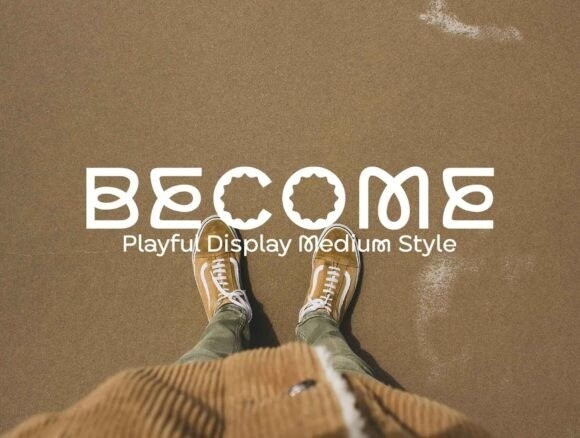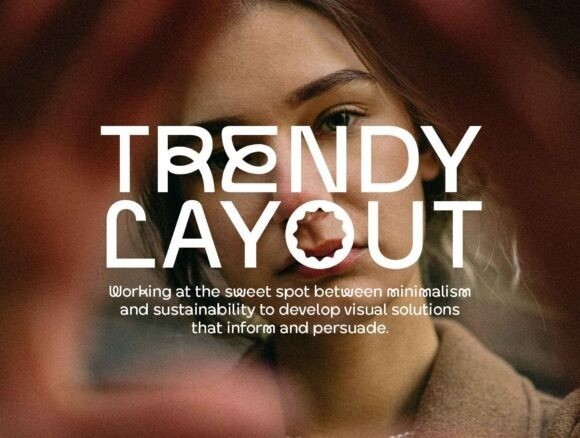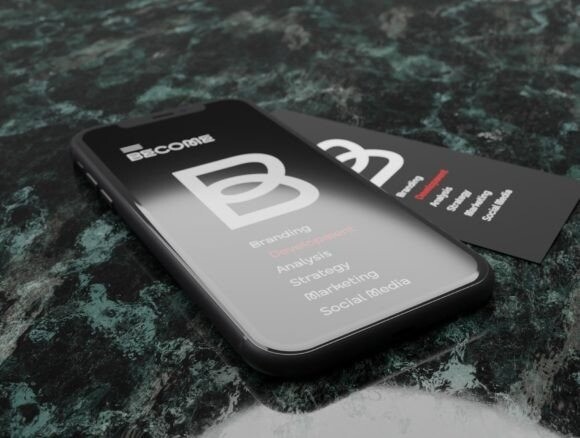
Become Font
Become is a modern medium display font. It is the latest trending typography solution for logo design and brand identity. Somewhat playful and decorative elements are added to the glyphs, which allow for a variety of spatial presentations by mixing carefully designed alternates.